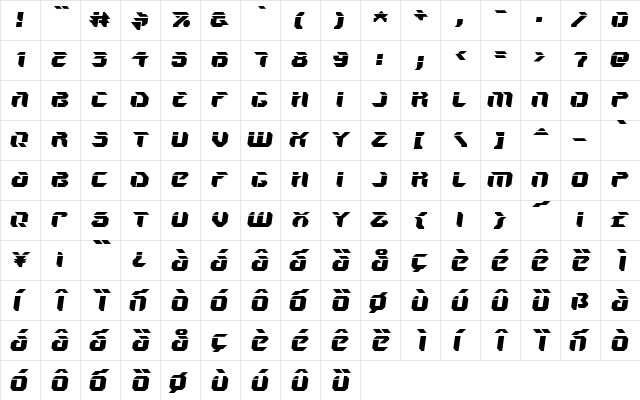
V5 Ampon Slanted
V5 Ampon is a composed and adaptable typeface that performs quietly and consistently across a wide range of design contexts. The slanted form adds forward momentum and visual energy.
Pro Tip: Try V5 Ampon for annotation and caption copy alongside an upright companion — the contrast in angle creates a dynamic but ordered typographic system.